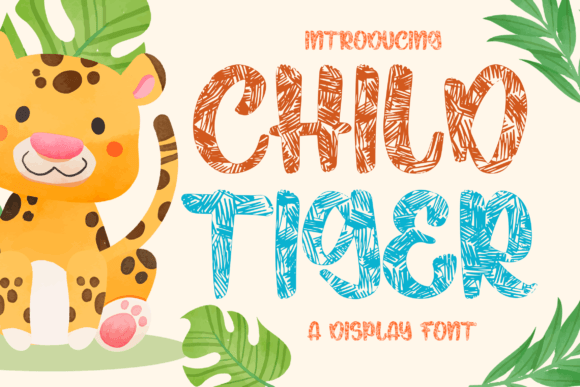
Introducing Child Tiger Font: The Ultimate Display Font for Friendly and Playful Designs
Are you looking for a font that exudes friendliness and playfulness? Look no further than Child Tiger Font! This childish, easy-to-read display font is perfect for a variety of design projects, from crafts and digital design to presentations and greeting cards. In this article, we’ll take a closer look at Child Tiger Font and explore its features, benefits, and uses.
What is Child Tiger Font?
Child Tiger Font is a display font designed to convey a sense of friendliness and approachability. Its childish and playful style makes it perfect for designs that require a lighthearted and fun tone. The font is easy to read, even at small sizes, making it versatile for use in various design projects.
Key Features of Child Tiger Font
- Childish and playful style: Child Tiger Font has a unique and playful style that is sure to capture the attention of your audience.
- Easy to read: The font is designed to be easy to read, even at small sizes, making it perfect for use in digital design, presentations, and more.
- Versatile: Child Tiger Font can be used for a variety of design projects, from crafts and digital design to presentations and greeting cards.
- Conveys friendliness: The font is designed to convey a sense of friendliness and approachability, making it perfect for designs that require a warm and welcoming tone.
Benefits of Using Child Tiger Font
There are many benefits to using Child Tiger Font in your design projects. Here are a few:
- Adds a playful touch: Child Tiger Font adds a playful touch to your designs, making them more engaging and fun.
- Versatile: Child Tiger Font can be used for a variety of design projects, making it a great addition to your font library.
- Conveys friendliness: The font is designed to convey a sense of friendliness and approachability, making it perfect for designs that require a warm and welcoming tone.
Uses of Child Tiger Font
Child Tiger Font can be used for a variety of design projects, including:
- Crafts: Use Child Tiger Font to add a playful touch to your craft projects, such as handmade cards and gift tags.
- Digital design: Use the font in your digital design projects, such as social media graphics and blog posts.
- Presentations: Use Child Tiger Font to add a friendly and approachable tone to your presentations.
- Greeting cards: Use the font to create friendly and playful greeting cards for special occasions.
Tips for Using Child Tiger Font
Here are a few tips for using Child Tiger Font:
- Use it for headings: Child Tiger Font is perfect for use in headings and titles, where its playful style can really shine.
- Experiment with colors: Try using Child Tiger Font with different colors to add visual interest to your designs.
- Pair it with other fonts: Pair Child Tiger Font with other fonts to create a unique and interesting design.
Child Tiger Font is a versatile and fun display font that is perfect for a variety of design projects. Its childish and playful style makes it ideal for designs that require a friendly and approachable tone. With its ease of use and versatility, Child Tiger Font is sure to become your go-to font for all your design needs.
Get Ready to Make Your Designs Roar with Child Tiger Font!